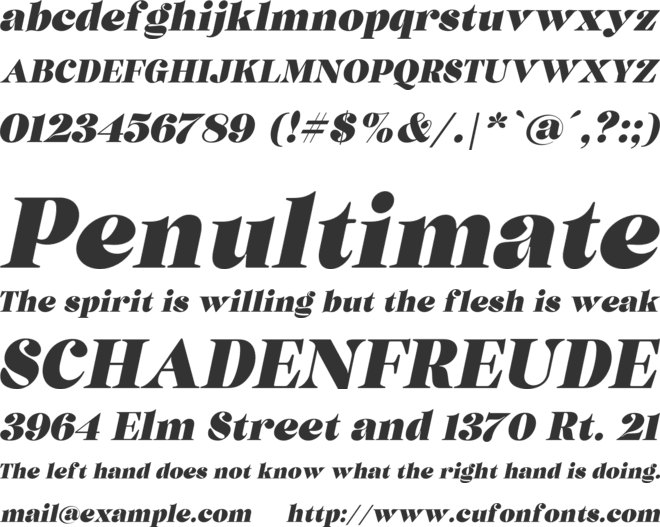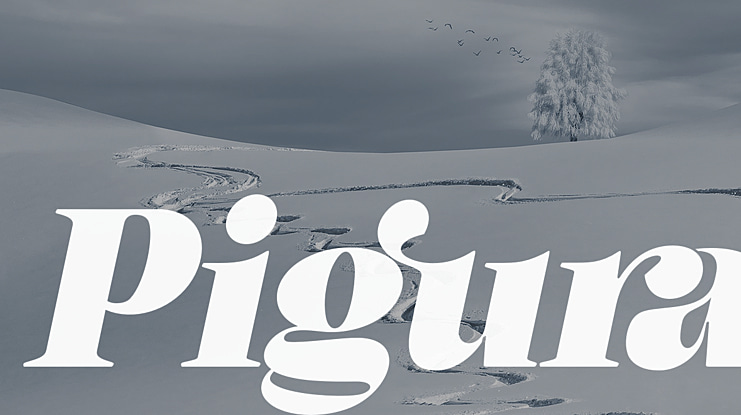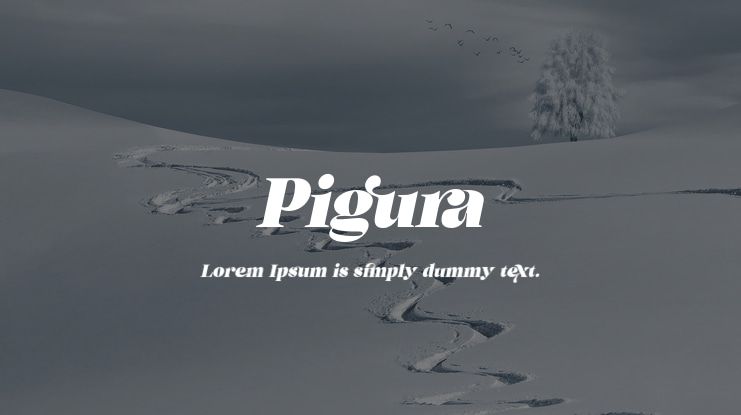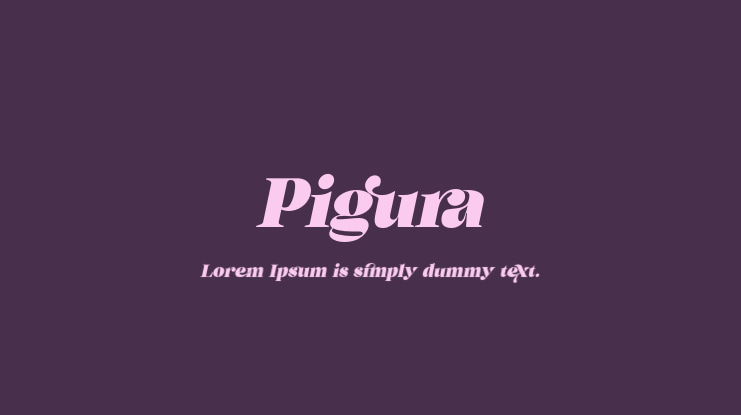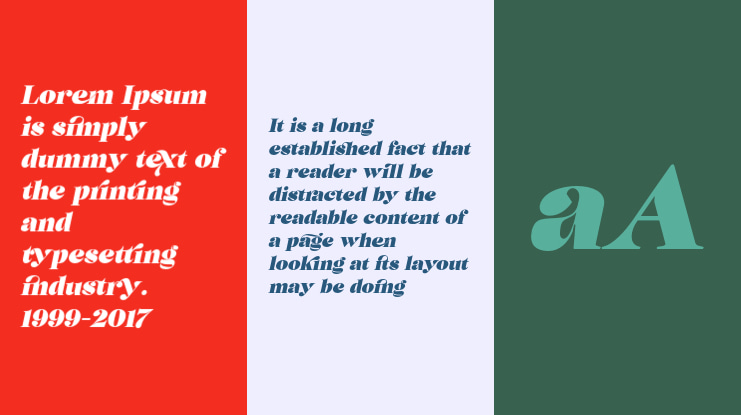
Pigura Font
This is a soft and rounded serif typeface that will bring retro vibes to the modern era. Made from font designer named joelmaker. It’s a serif font with an artistic touch for vintage the as well as a unique blend of ligatures a letter, so that the authors compose it with a and little swirly embedding, so that a modern font is formed and ready to make a statement by adding elegant and unique flair to your next design project.